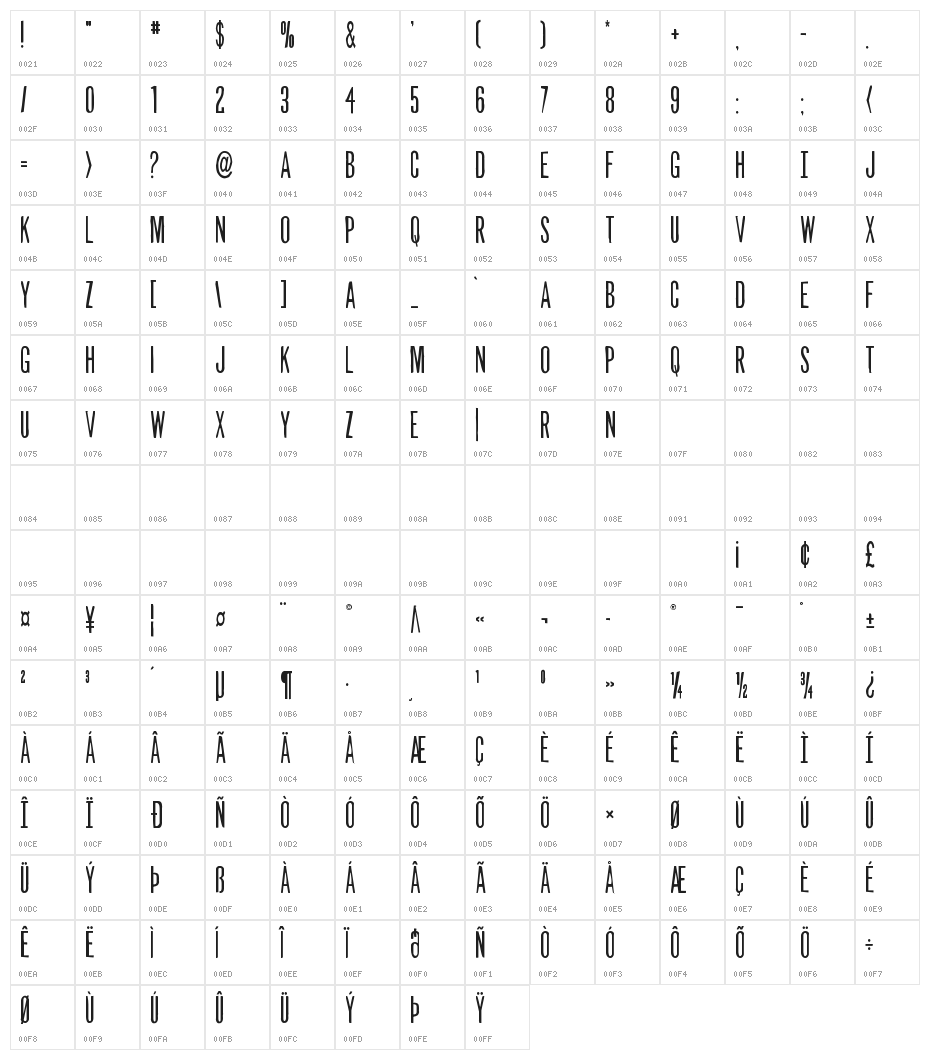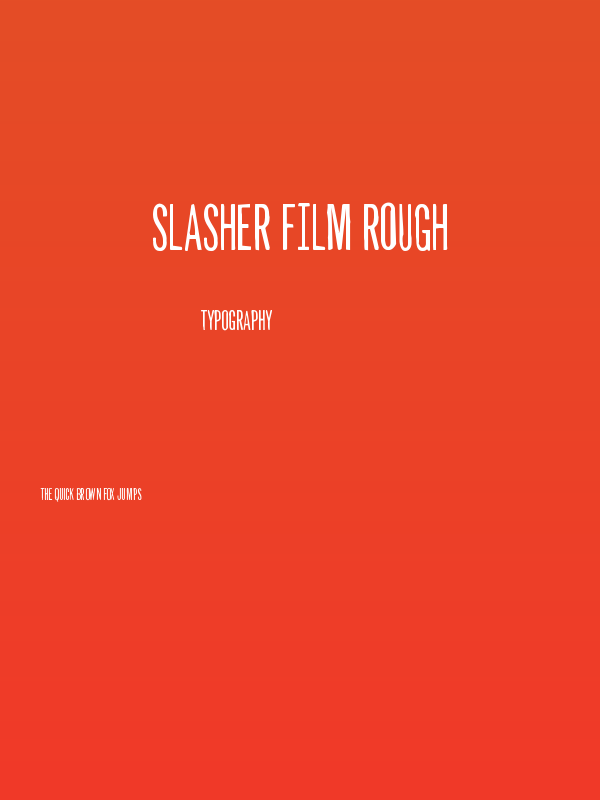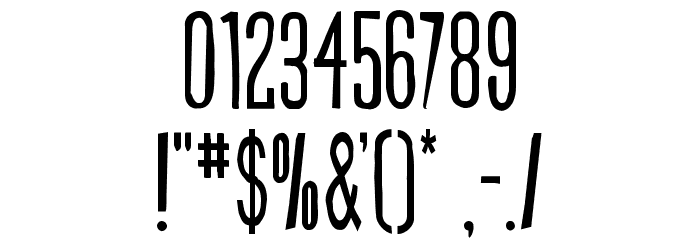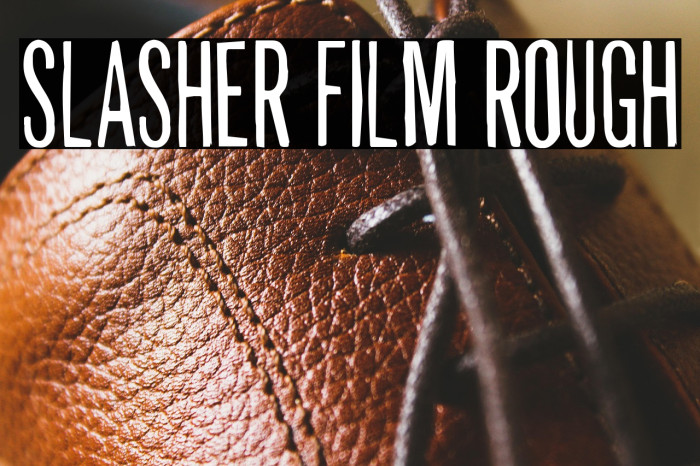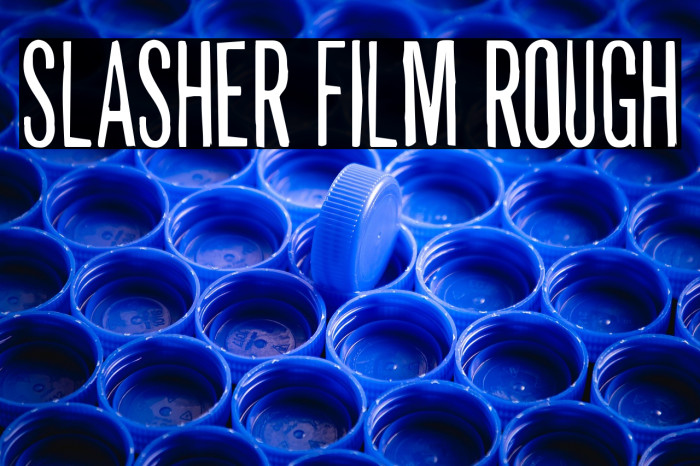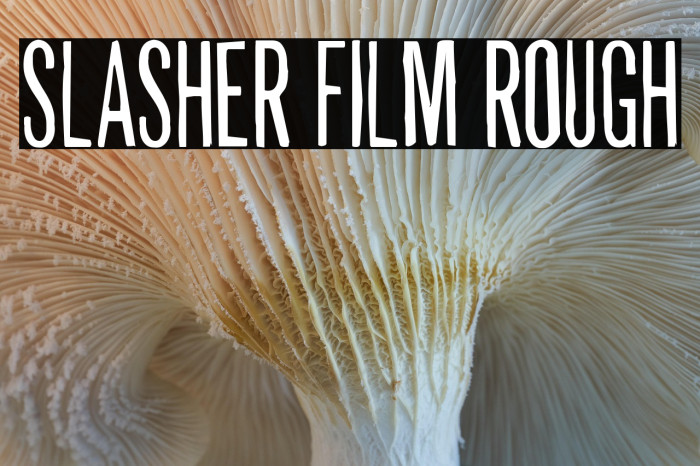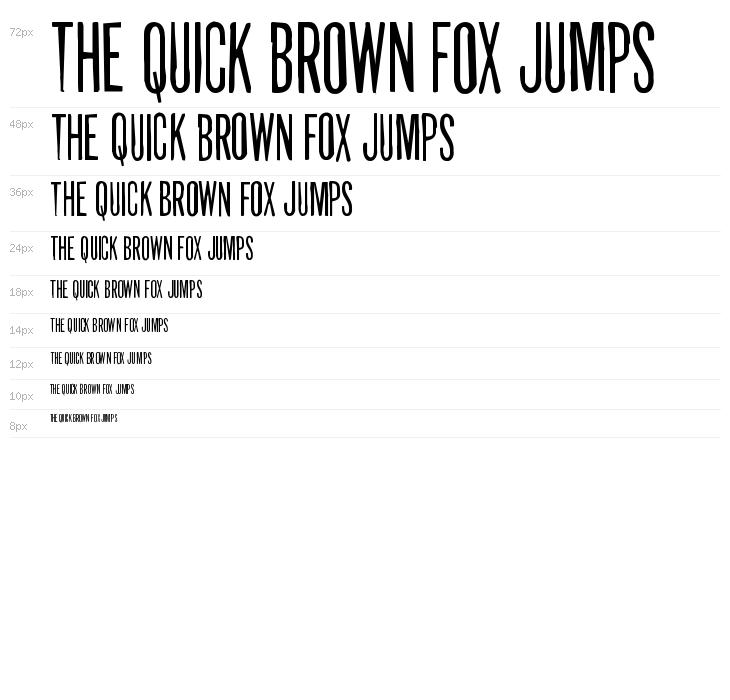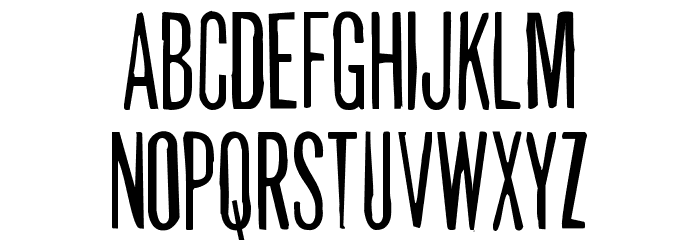
Slasher Film Rough Font
Slasher Film Rough Description
This font features a rough, distressed style with elongated, narrow characters that give it a unique and edgy appearance. The letters have uneven edges and a hand-drawn feel, which adds to its raw and gritty aesthetic. The uppercase and lowercase letters maintain a consistent height, while the numbers and special characters follow the same rugged design. This font is perfect for projects that require a bold and unconventional look, such as horror-themed designs or rebellious branding. Its distinctive style makes it stand out, capturing attention with its dramatic flair.
| Proposed Projects | Ideal for horror movie posters, edgy branding, album covers, and rebellious-themed designs. |